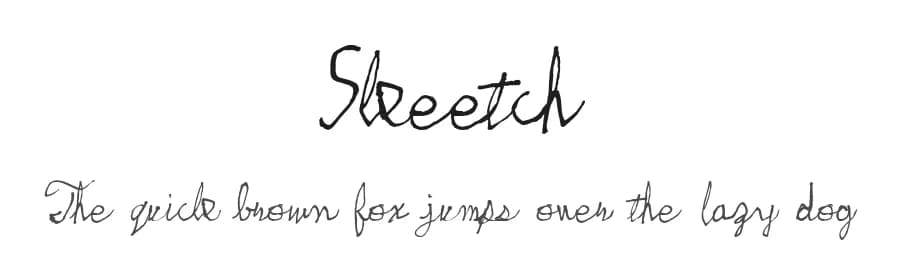
About Skeetch Font
Skeetch is a script & handwritten font designed by Emerald City Fontwerks. It includes 560 glyphs, a regular weight, TTF (TrueType) format, and 292 languages. Skeetch is free to download; check the license details on this page before commercial use. Script & handwritten fonts like Skeetch work best for wedding invitations, greeting cards, signatures, and elegant branding.
Skeetch Font is a script font that shines as a display or heading face. Pair it with a clean sans-serif or serif font for body text β the contrast creates a clear hierarchy while the two styles stay balanced and easy to read.
Skeetch Font
Skeetch Font is a script handwritten typeface by Emerald City Fontwerks, ideal for logos, invitations, branding, and creative projects.